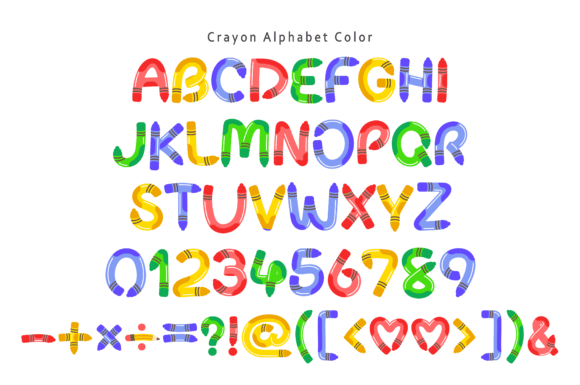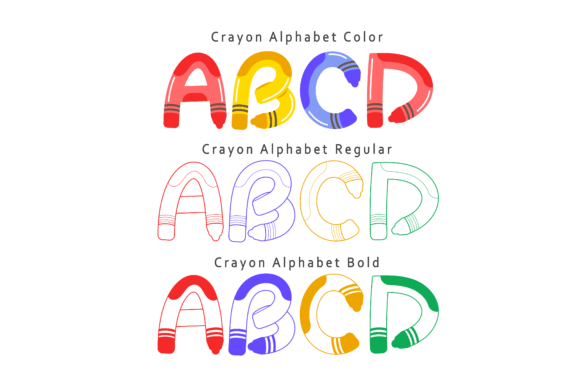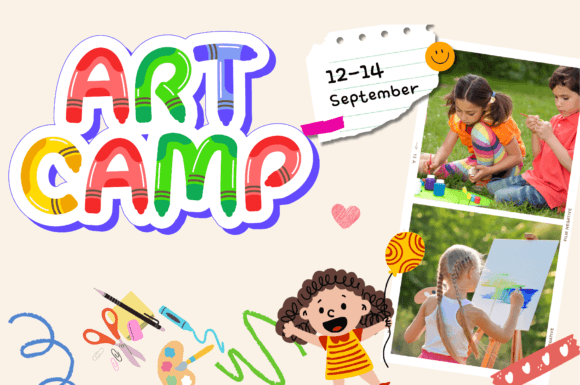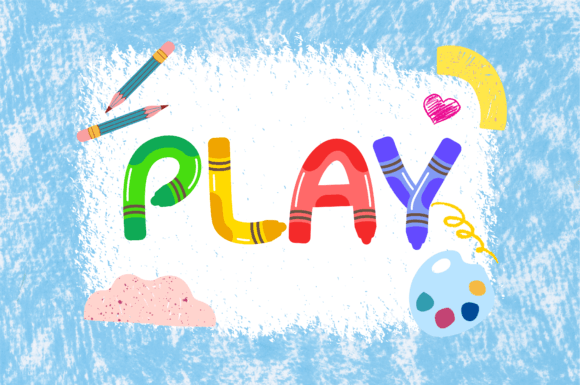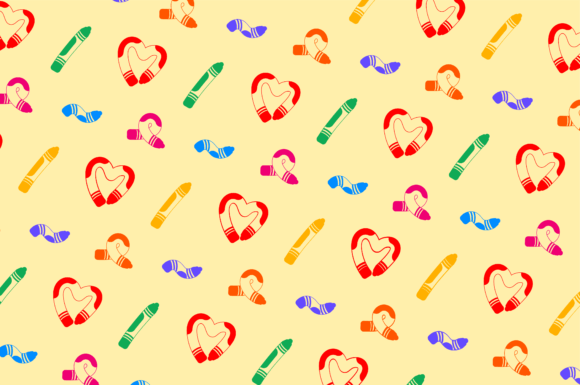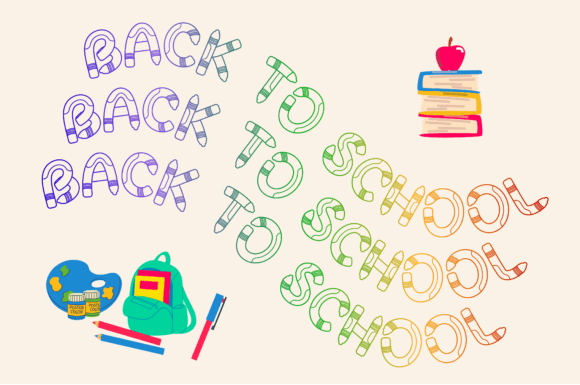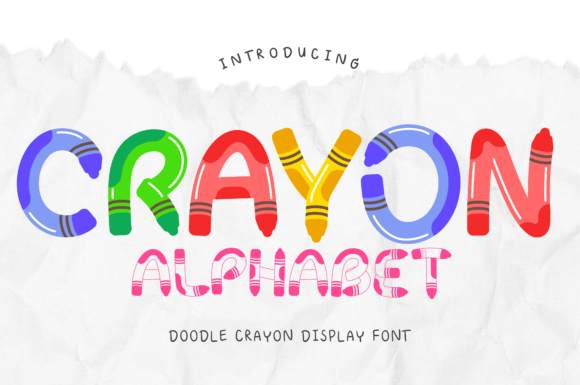
Crayon Alphabet Font: Add a Pop of Color to Your Designs
Are you looking for a fun and creative way to add some personality to your designs? Look no further than the Crayon Alphabet Font! This vibrant and playful font is perfect for kids’ projects, school materials, or any design that needs a cheerful and creative touch.
What is Crayon Alphabet Font?
The Crayon Alphabet Font is a unique and colorful font where each letter looks like it’s drawn with crayons. The letters are bright, bold, and playful, making it perfect for designs that need a fun and youthful touch. The font comes in two versions: a black version and a color version.
Color Version: Perfect for Graphic Design
Tips for Using Crayon Alphabet Font
Here are some tips for using the Crayon Alphabet Font in your designs:
• Experiment with different colors and combinations to create unique designs.
• Use the font for kids’ projects, school materials, and other designs that require a playful touch.
The Crayon Alphabet Font is a fun and creative way to add some personality to your designs. With its bright and playful letters, it’s perfect for kids’ projects, school materials, or any design that needs a cheerful and creative touch. Whether you’re a designer, crafter, or educator, this font is sure to become a favorite in your collection.